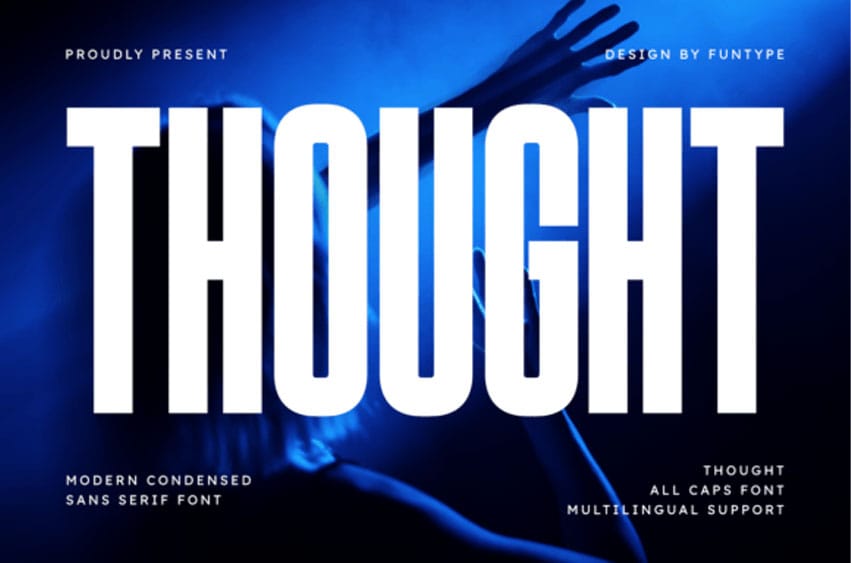
Thought Condensed Font is a bold, high-impact modern bold condensed sans font display designed for maximum visibility and a clean, contemporary aesthetic.
Its solid vertical structure and powerful narrow letterforms make it an exceptional choice for dominant headlines, professional branding, social media graphics, and impactful poster designs.
This versatile all caps typeface ensures your message is delivered with confidence and clarity, providing a sleek yet authoritative look that is perfect for any modern creative project across digital.